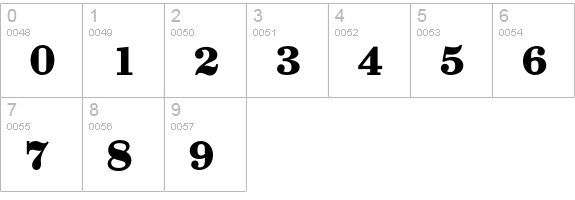
Wichita-Bold is a strong, high-contrast variant in the Wichita typeface family \xE2\x80\x94 well suited to headlines, attention-grabbing titles, and strong calls-to-action.
Introducing Wichita-Bold, a captivating and versatile font that is sure to make a bold statement in any design project. With its strong and powerful presence, this font demands attention and exudes confidence. Wichita-Bold is the perfect choice for those looking to add a touch of strength and elegance to their designs. Its sleek and modern lines create a sense of professionalism and sophistication, making it ideal for a wide range of applications, from branding and advertising to packaging and headlines. But what sets Wichita-Bold apart from other fonts is its generous offer of being freely available to download at FontsMarket.com. Yes, you read that right – this incredible font can be yours completely free of charge. Now, you can elevate your designs without breaking the bank. Whether you're a graphic designer, a web developer, or simply someone looking to add a touch of class to their personal projects, Wichita-Bold is the perfect choice. Its versatility and timeless appeal ensure that it will remain a staple in your font library for years to come. So why wait? Download Wichita-Bold today and let your creativity soar. With its bold and captivating presence, this font is sure to leave a lasting impression on any audience. Get ready to make a statement with Wichita-Bold – the free font that delivers on both style and substance.